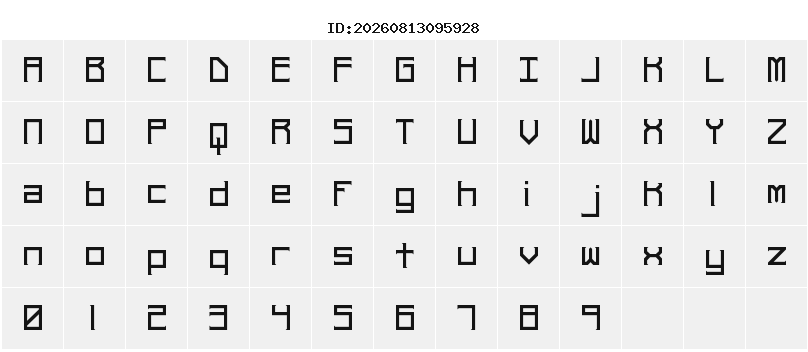
Rehearsal Point BRK Preview
About Rehearsal Point BRK.ttf
Rehearsal Point BRK.ttf is a modern, elegant sans-serif font designed for ultimate readability and visual harmony. Perfect for branding, headlines, web design, and print materials.